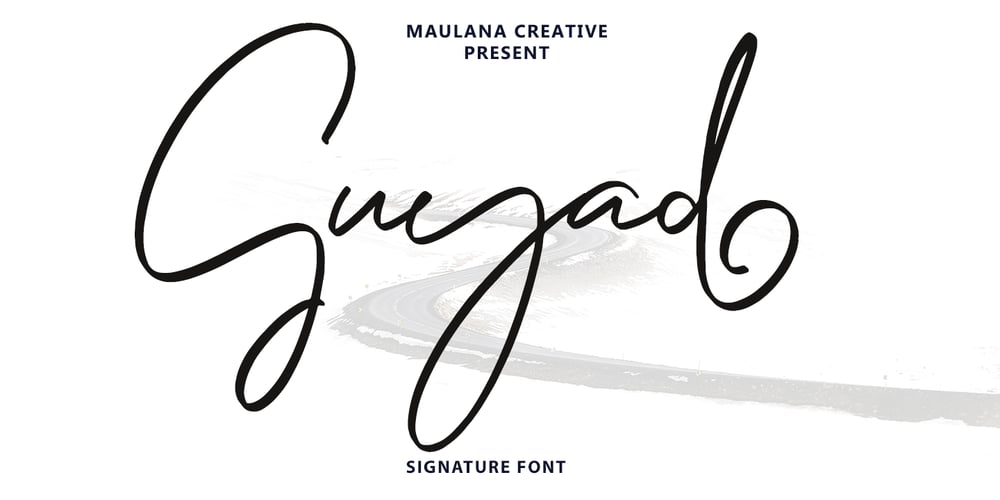
Guyad Font Family was designed by Gilang Maulana and published by Maulana Creative. Guyad contains 1 styles and family package options. Guyad is a Casual script font. With bold mono-line stroke, slant and fun character with a bit of ligatures. To give you an extra creative work. Guyad font support multilingual more than 100+ language. This font is good for logo design, Social media, Movie Titles, Books Titles, a short text even a long text letter and good for your secondary text font with sans or serif. Make a stunning work with Guyad font.Cheers, MaulanaCreative